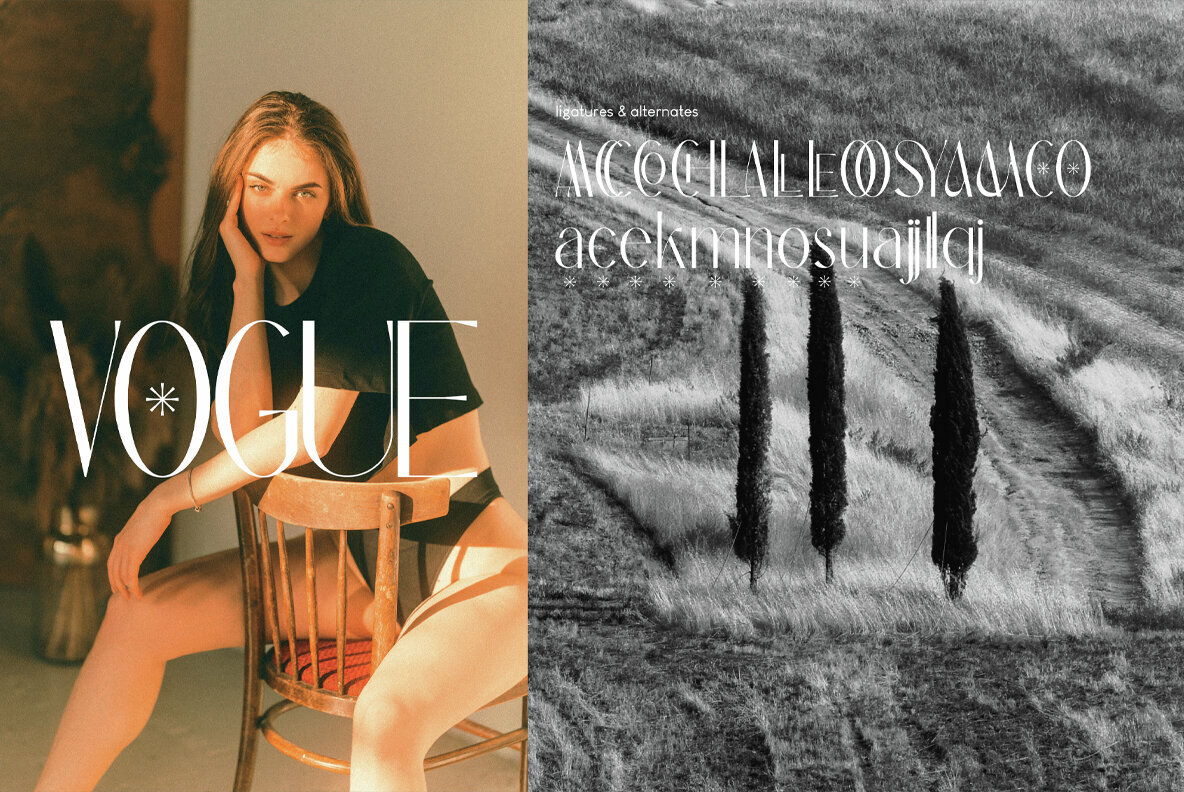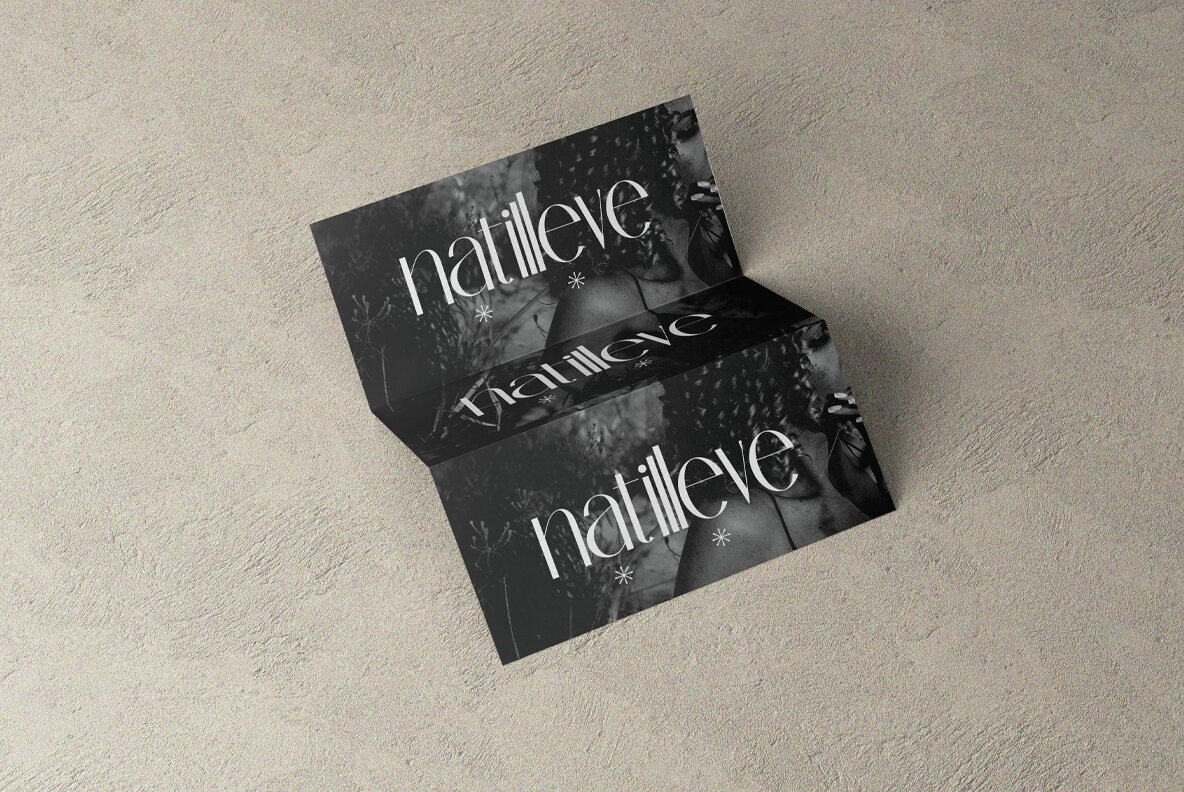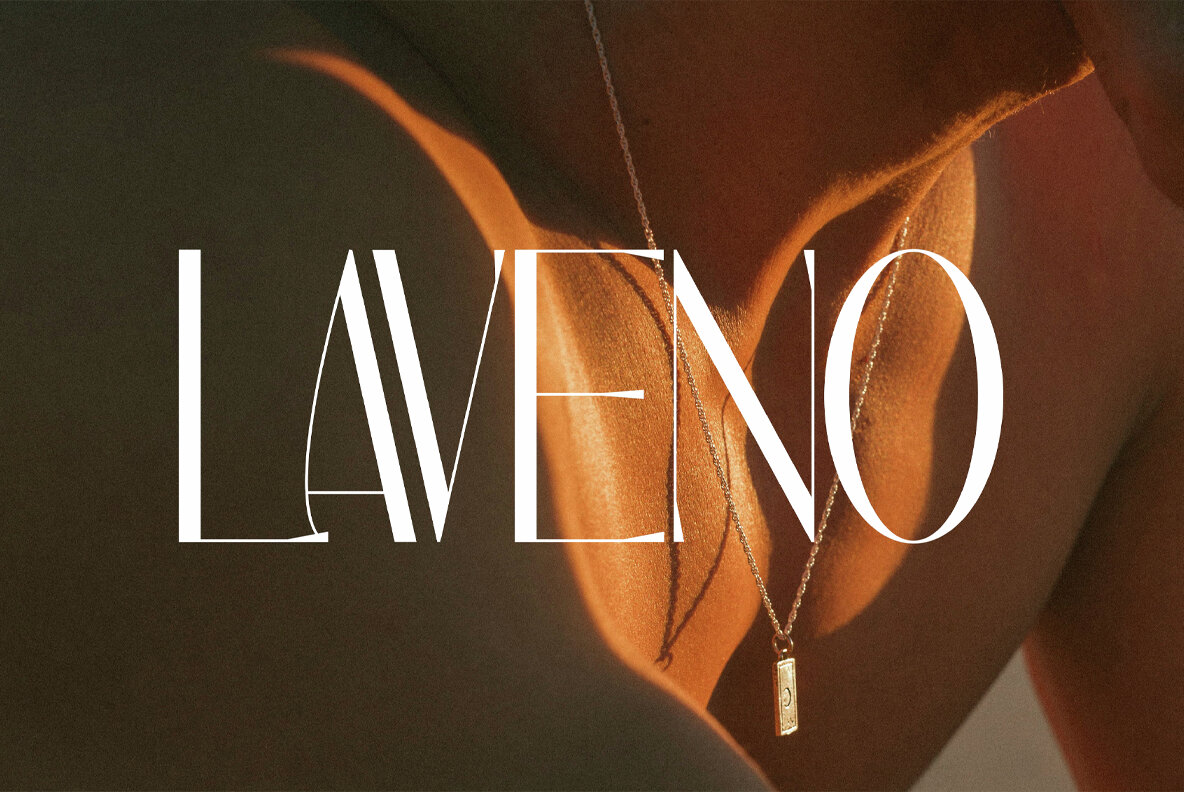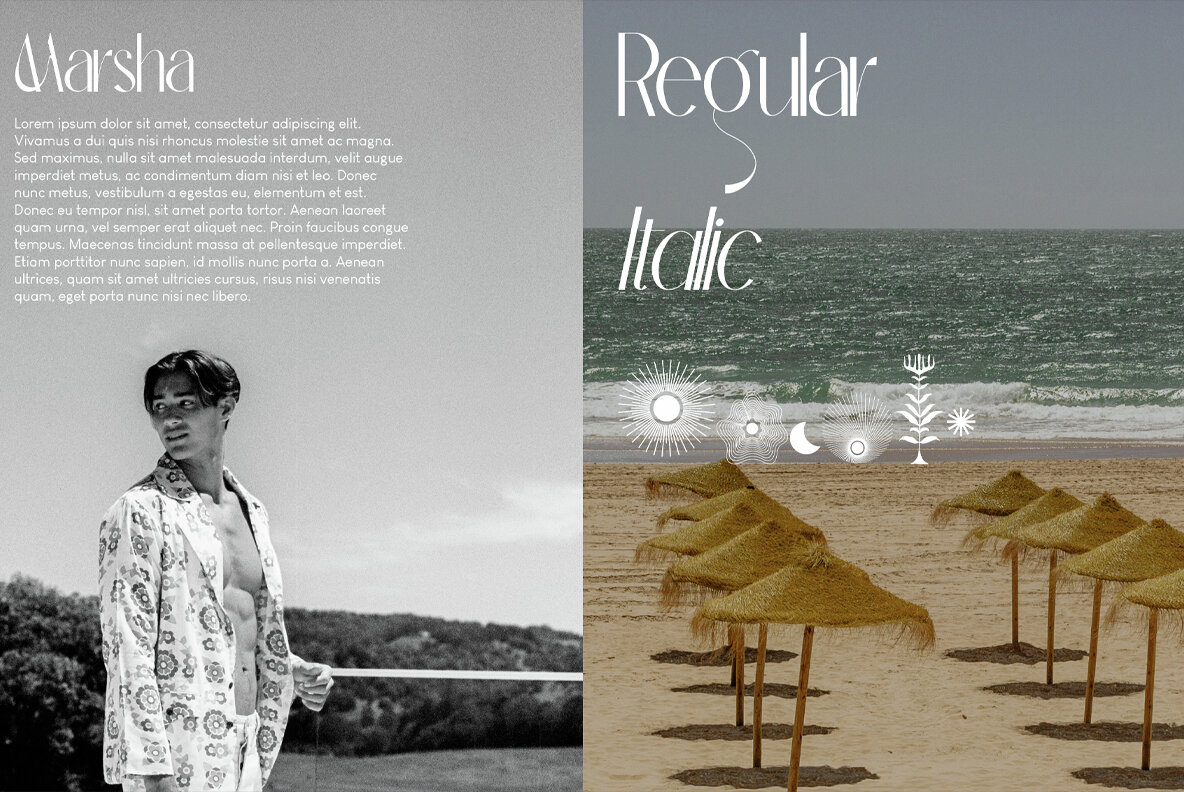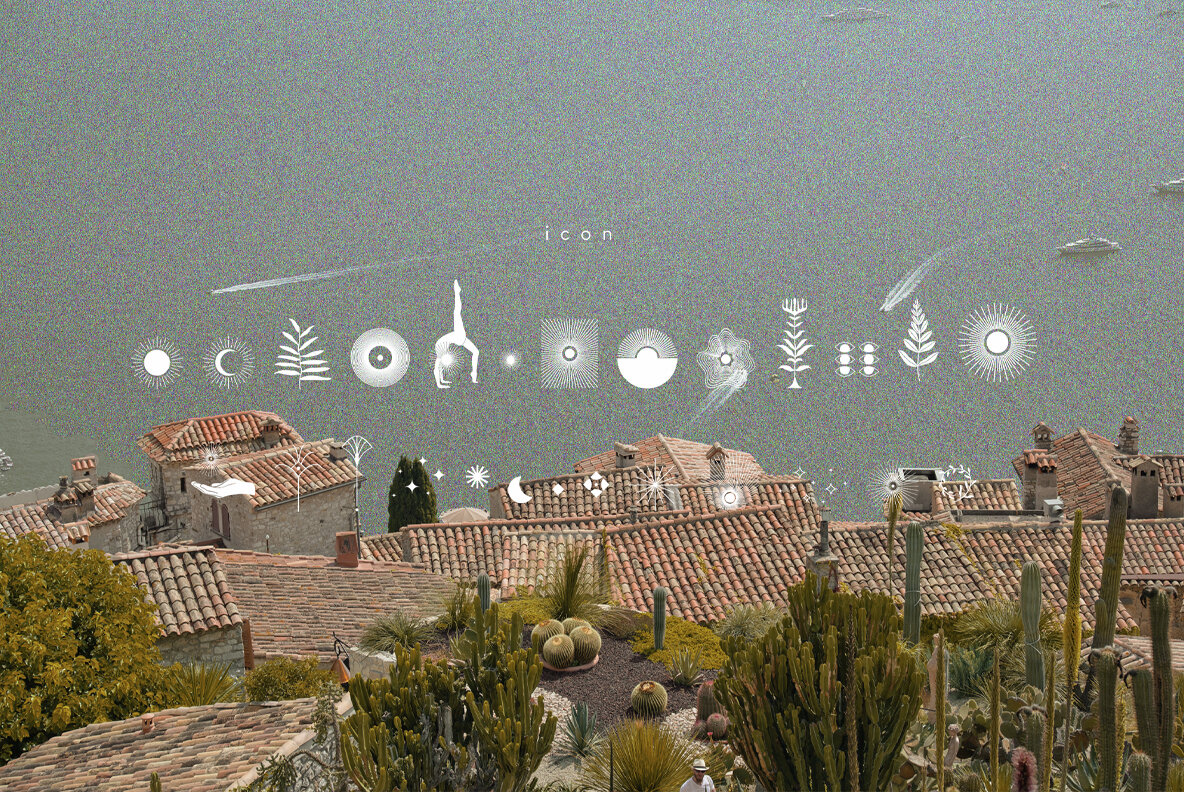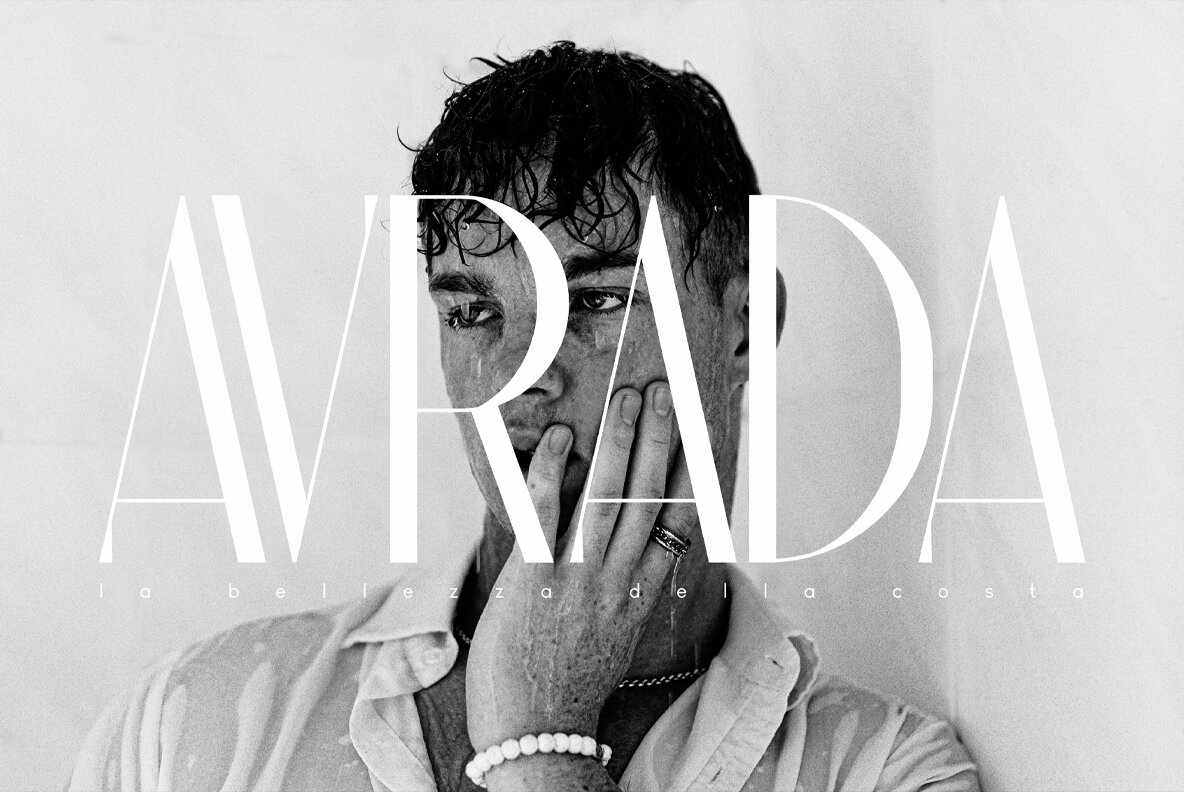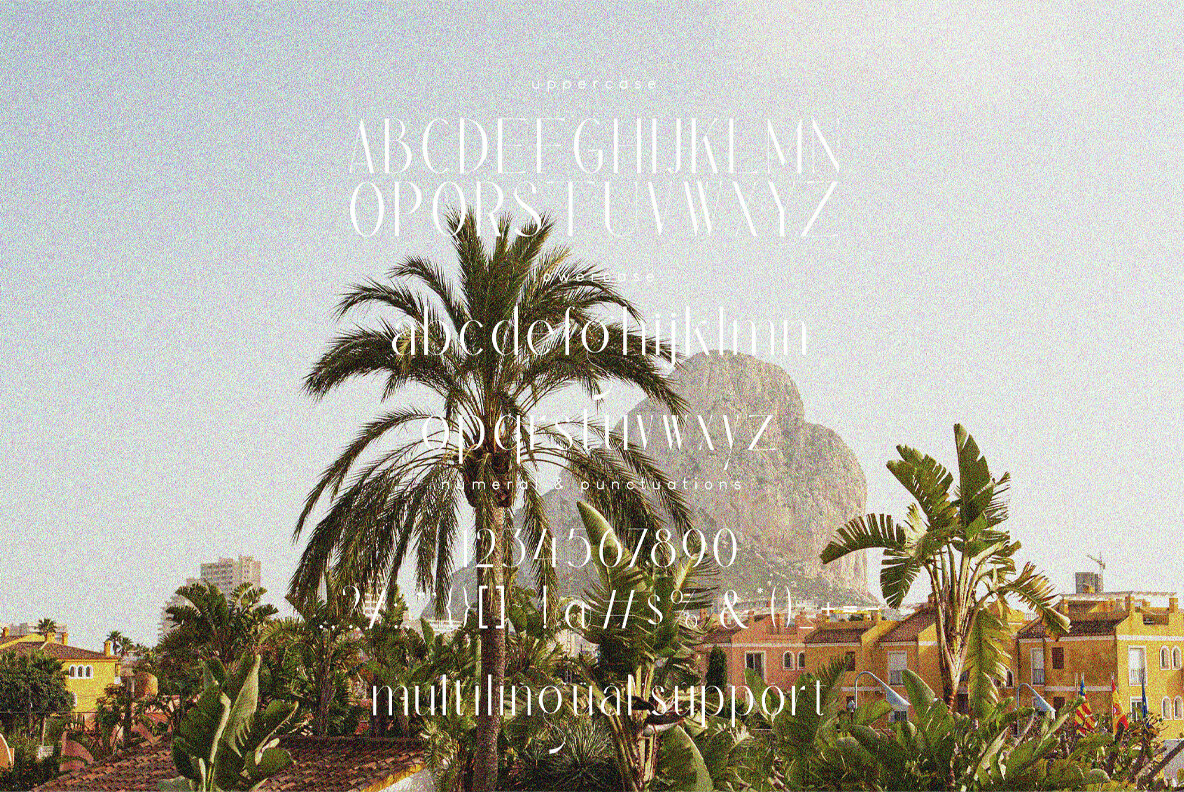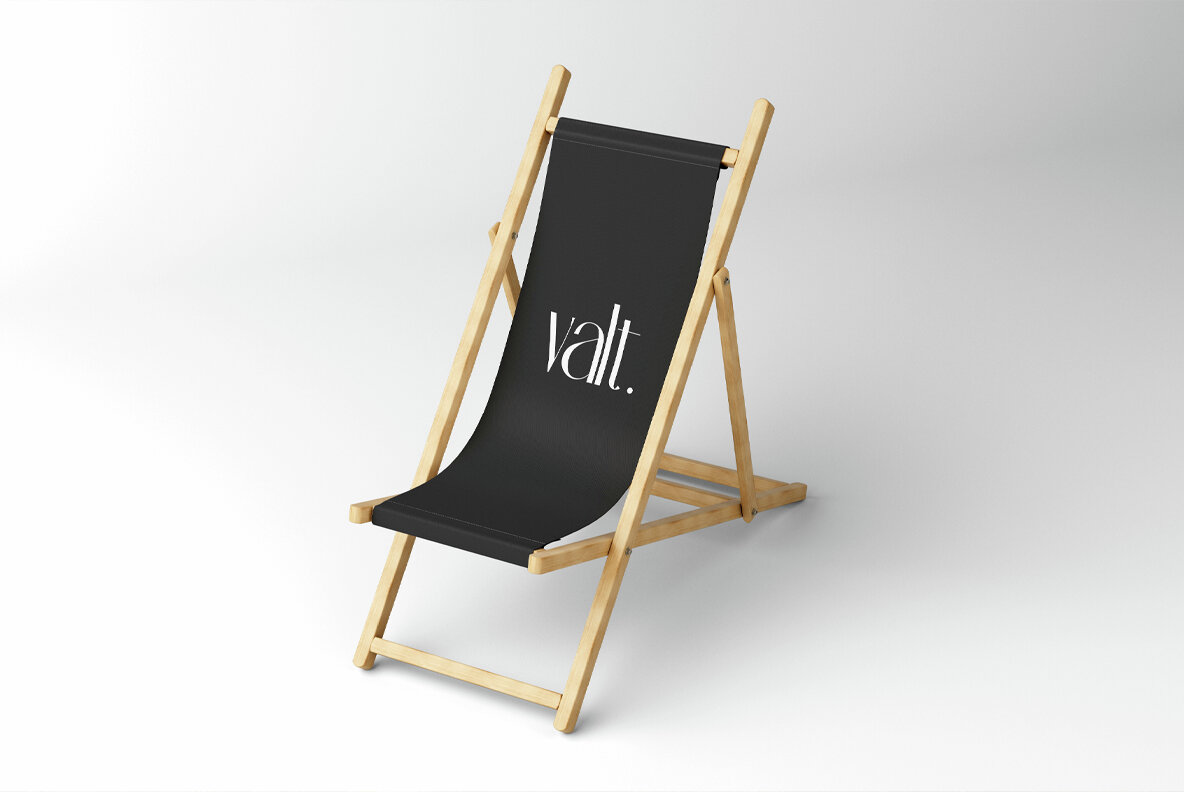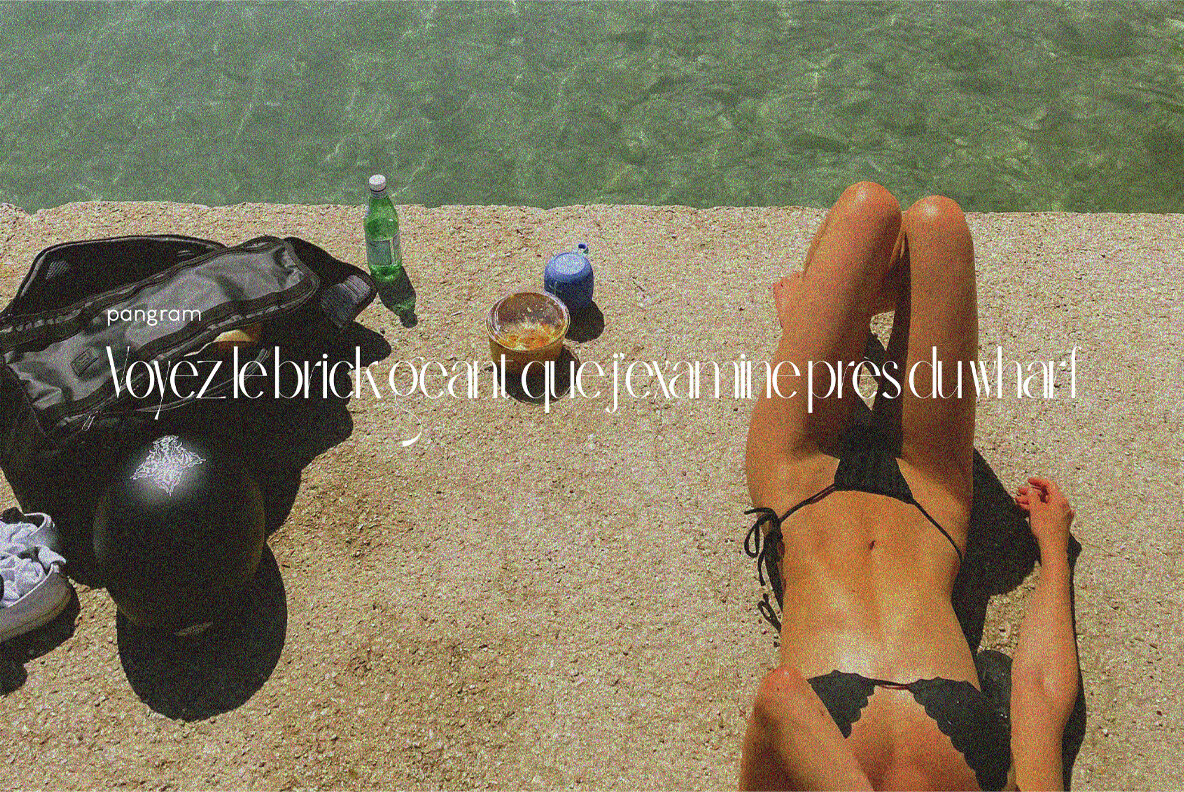
Qe Laurenty Font
Qe Laurenty
Qe Laurenty Italic
Qe Laurenty Icon
The newly released Qe Laurenty sans serif font exudes an air of timeless sophistication and elegance. Its clean lines and precise geometry make it a truly classy choice for any design project. Qe Laurenty's refined curves and delicate letterforms add a touch of luxury to any typographic composition. This font's exquisite detailing and balanced proportions make it perfect for creating elegant branding materials. Qe Laurenty's graceful and sophisticated aesthetic elevates any text, ensuring a truly memorable reading experience. The sleek and minimalistic design of the Qe Laurenty sans serif font exudes an understated elegance that is sure to impress. With its impeccable craftsmanship and refined style, Qe Laurenty captures the essence of timeless sophistication. Complete with:
Whether used in print or digital media, the Qe Laurenty font commands attention with its tasteful and elegant presence. The Qe Laurenty sans serif font exudes an effortless elegance, making it an ideal choice for high-end editorial design. Designed with meticulous attention to detail, the Qe Laurenty font offers a harmonious blend of classiness and elegance. It looks perfect on logos, branding, invitations, marketing materials, wedding designs, social media posts, and every other design which needs a customized touch.